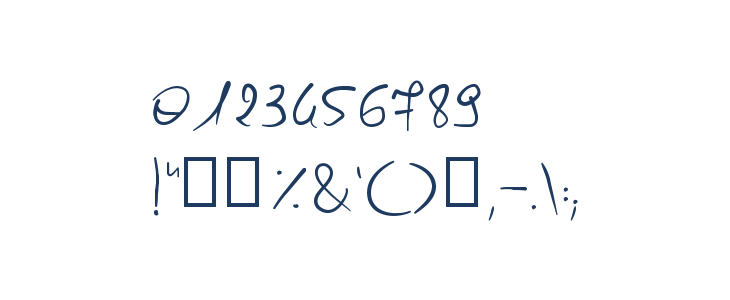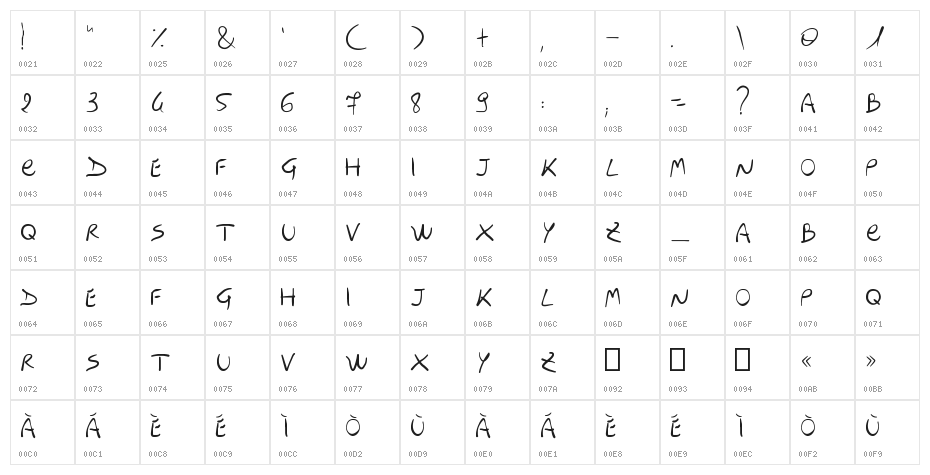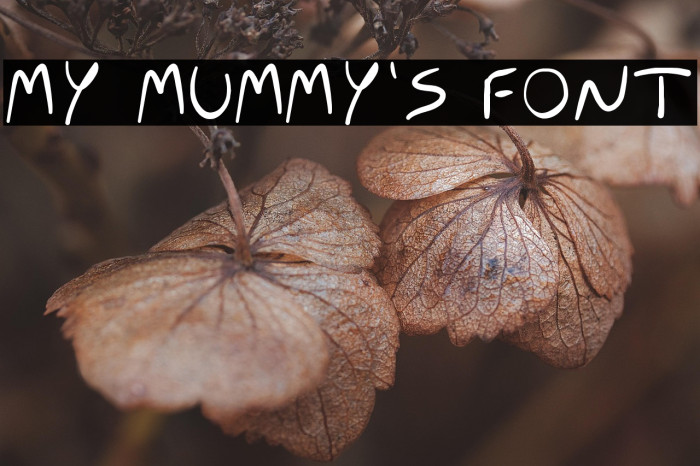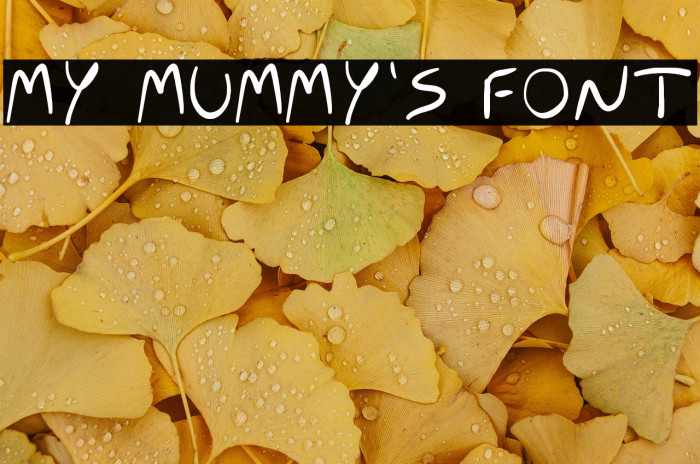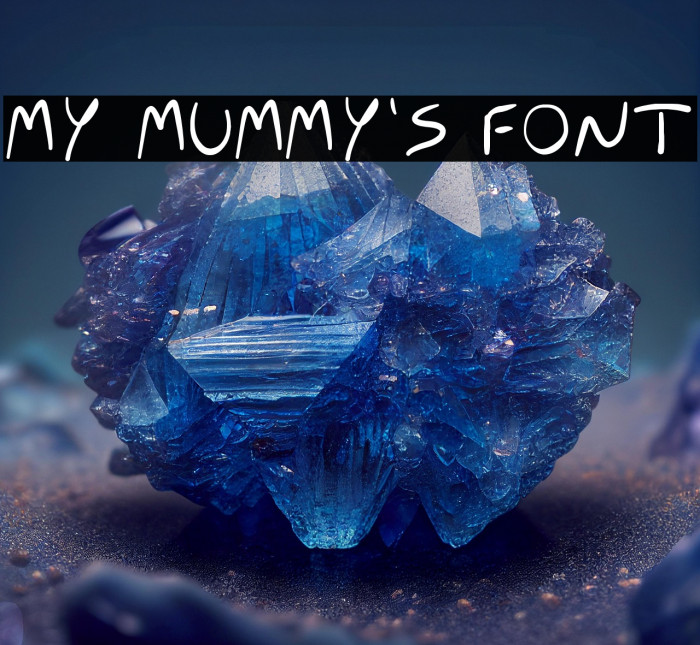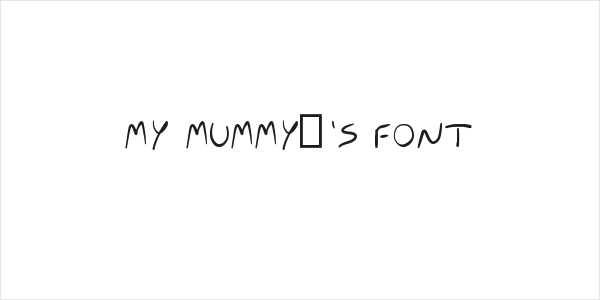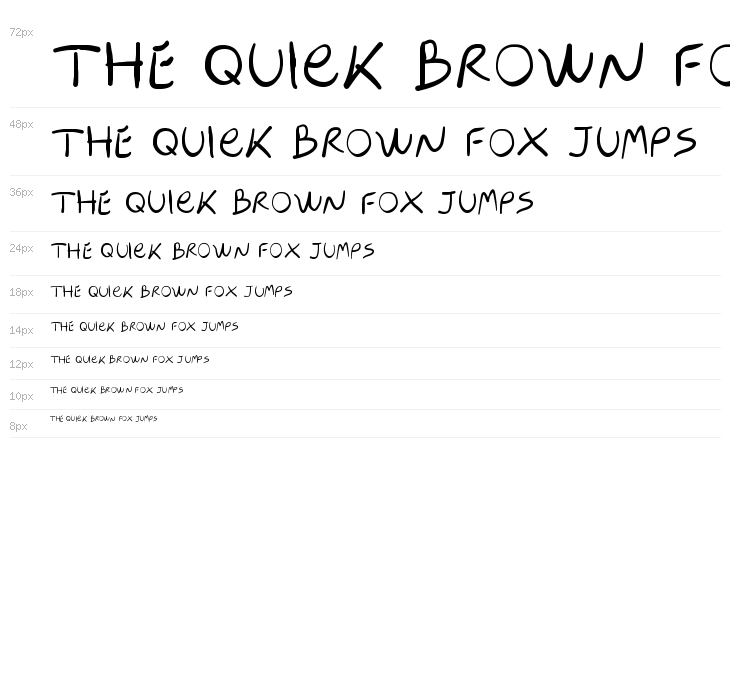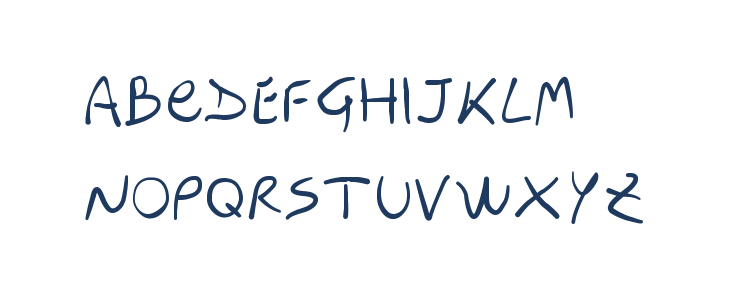
MY MUMMY'S FONT Font
MY MUMMY'S FONT Description
This font features a playful and casual handwritten style, characterized by its uneven strokes and slightly irregular letterforms. The uppercase and lowercase letters maintain a consistent flow, giving it a natural and organic appearance. The numbers and special characters follow the same informal style, making it suitable for projects that require a personal touch. The overall design is approachable and friendly, with a touch of whimsy that adds personality to any text. Its unique charm makes it stand out, while still being legible and versatile for various uses.
| Use Case | Greeting cards, Personal notes, Creative branding |
| Proposed Projects | Ideal for greeting cards, personal notes, children's books, and creative branding projects. |